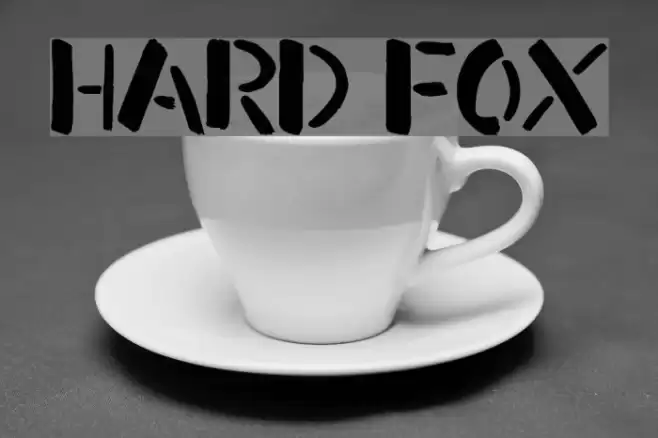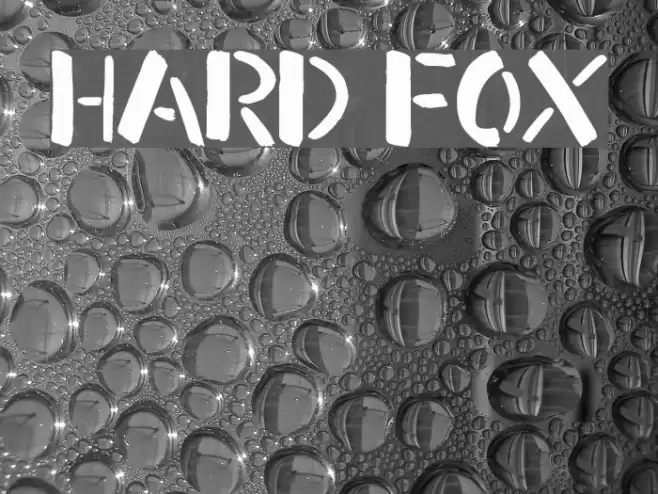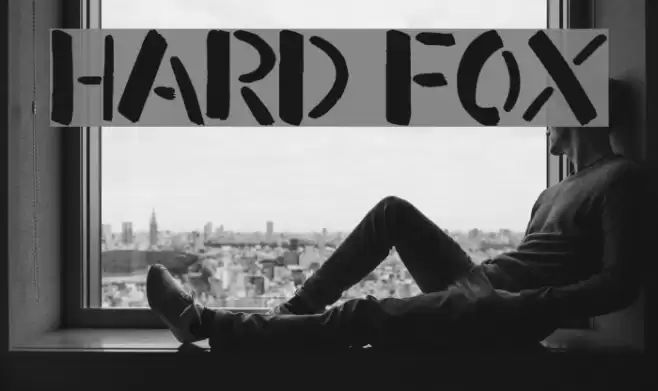
Hard Fox Font
Hard Fox Description
This font features a bold and dynamic style with a strong presence. The characters are crafted with a brush-like texture, giving them an artistic and hand-painted appearance. The uppercase letters are particularly striking, with a mix of thick and thin strokes that create a sense of movement and energy. The lowercase letters maintain this bold aesthetic, ensuring consistency across the font. Numbers and special characters are designed to match the overall style, making them suitable for a variety of creative applications. The font's unique character shapes and artistic flair make it ideal for projects that require a bold and expressive look.
A bold, brush-style font with dynamic and artistic strokes from Uncategorized fonts.
- Proposed Projects: Ideal for posters, branding, packaging, and any project requiring a bold, artistic touch.
- Overall Style: Artistic, Bold